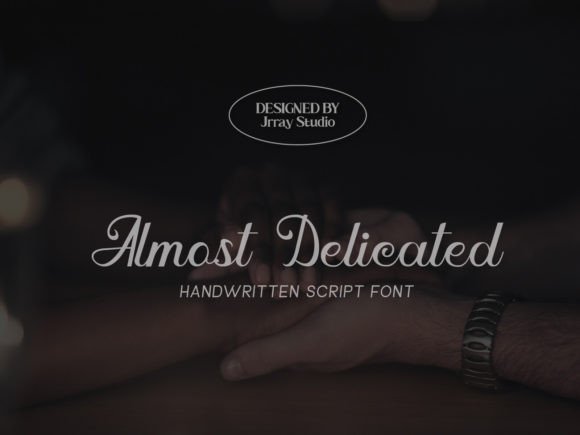
Unleashing the Art of Elegance: The Almost Delicated Font
As designers, we’ve all been there – staring at a blank page, trying to bring our creative vision to life. The cursor blinks, and our imagination runs wild. Suddenly, a spark of inspiration strikes, and we envision the perfect font to elevate our project. For those moments of pure design bliss, we introduce the Almost Delicated Font – a professional modern script font with a handwritten style that’s sure to leave a lasting impression.
With its fresh, elegant, and stylish appearance, the Almost Delicated Font is the perfect tool for designers looking to add a touch of sophistication to their creative projects. Whether it’s a logo, card, or product packaging, this font is sure to make your design stand out from the crowd. Its versatility and timeless appeal make it an invaluable asset for any designer looking to take their work to the next level.
- Unique Characteristics: Delicate, elegant, and refined design with subtle texture and ornate details
- Font Style: Script and handwritten font with a touch of sophistication
Almost Delicated Font Review
Overall, I’d say Almost Delicated Font is a beautiful script font that’s perfect for adding a touch of elegance to your designs. ✨ The flowing connections and subtle flair to the letterforms make it ideal for invitation, wedding, or luxury branding projects. ✨ The font is also highly customizable, allowing you to fine-tune the weight, spacing, and other settings to fit your specific design needs.
One of the standout features of Almost Delicated Font is its excellent legibility, even at smaller font sizes. ✨ This makes it perfect for applications where text needs to be easily readable, such as in print materials or digital interfaces.
While Almost Delicated Font is a great addition to any designer’s toolkit, there are a few limitations to be aware of:
- ⚠️ The font is not as versatile as some other script fonts, making it less suitable for casual or informal designs.
- ⚠️ The font’s complexity may make it challenging to use in certain design software or operating systems.
- ⚠️ Some users may find the font’s elegance comes at the cost of legibility in certain situations (e.g., very small font sizes).
In conclusion, Almost Delicated Font is a stunning script font that’s perfect for high-end or formal designs. While it may have some limitations, its beauty and elegance make it a worthwhile addition to any designer’s toolkit.
Getting the Most Out of Almost Delicated Font
Here are some tips for getting the most out of Almost Delicated Font:
- Use it for titles and headings to add a touch of elegance.
- Pair it with other elegant fonts for a sophisticated look.
- Experiment with different font sizes and styles to achieve the desired effect.
Almost Delicated Font is perfect for:
- Personalized gifts and party invitations.